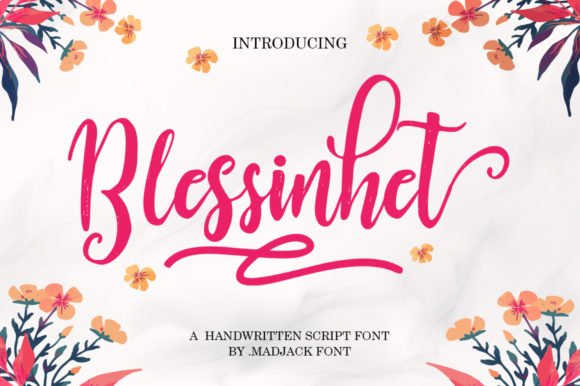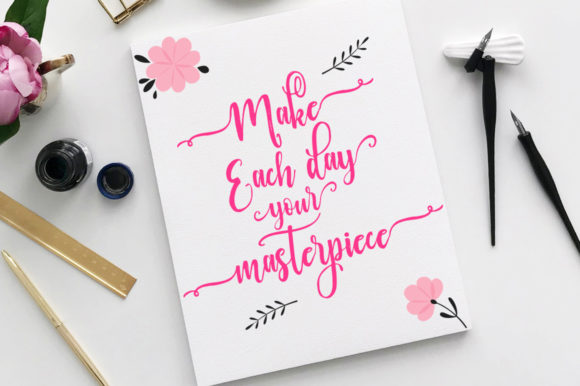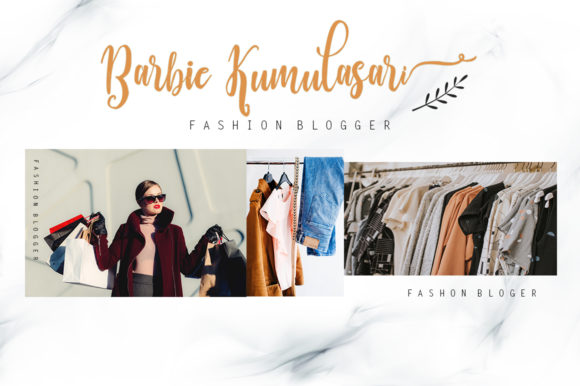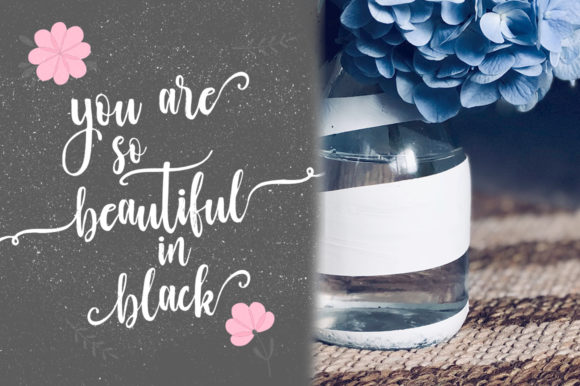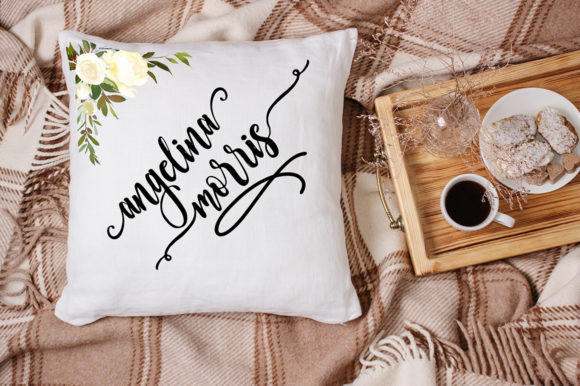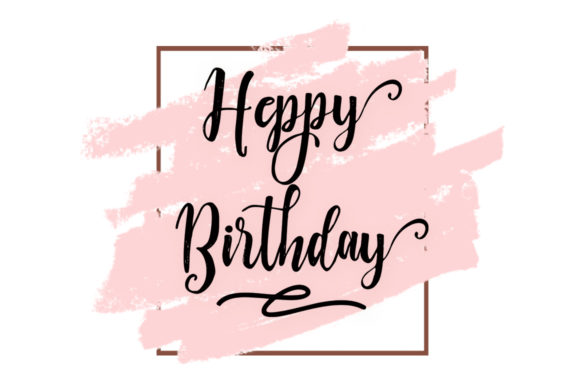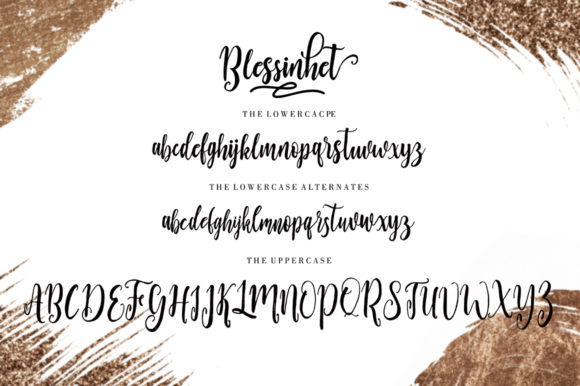
Blessinhet Font
About Blessinhet Font
Blessinhet is a modern & clean calligraphy script with dancing characters. It looks incredibly playful and cute, and can be used for various purposes such as logos, wedding invitations, postals, t-shirts, letterheads and much more!